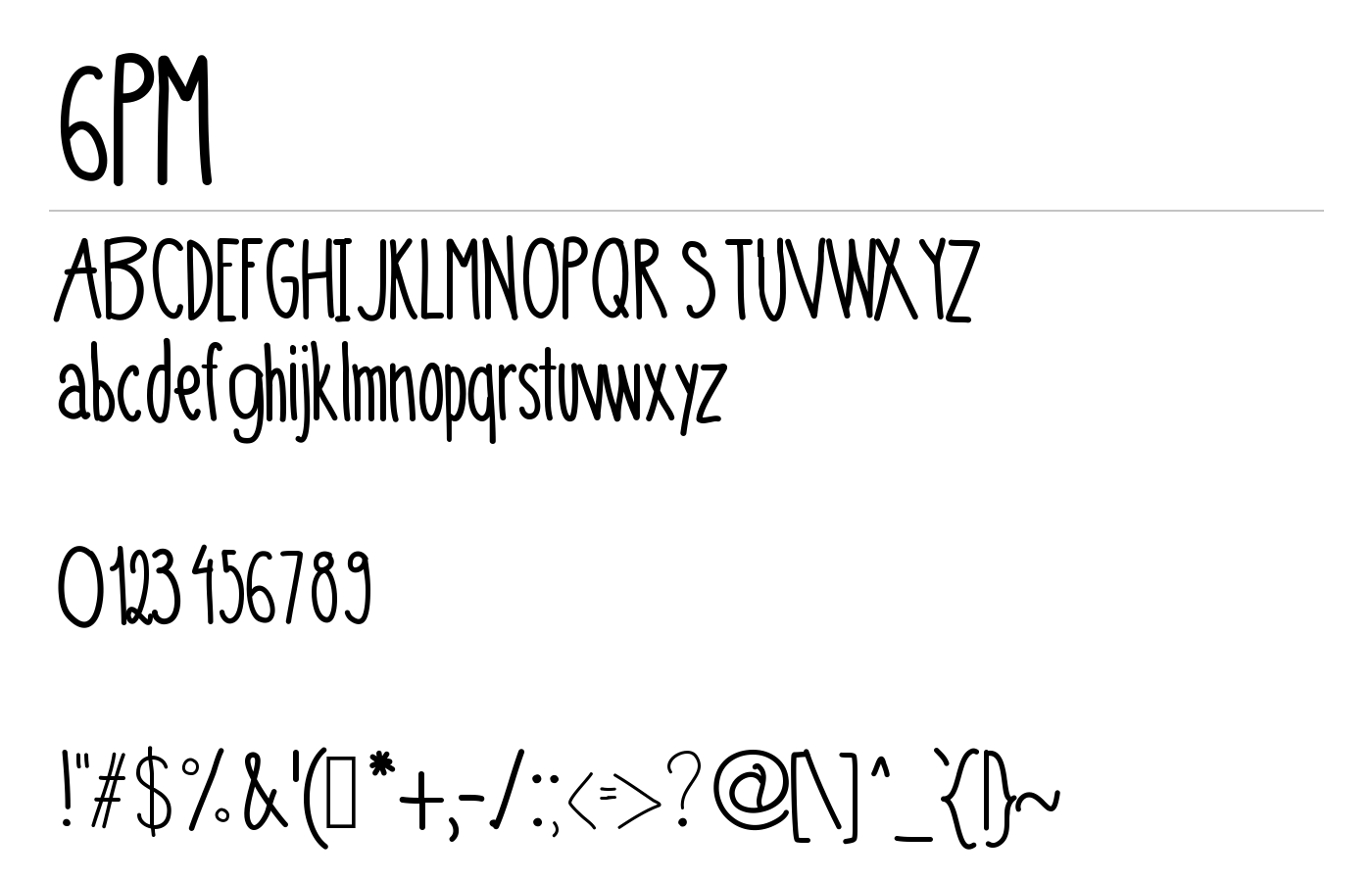
6PM is a playful and quirky sans-serif font with a hand-drawn, casual style. Its tall, narrow letterforms and uneven strokes give it an approachable and informal personality, making it perfect for creative projects, children’s designs, or any context seeking a friendly, whimsical touch. This font works well in headlines, logos, and packaging where a fun, lively vibe is desired.
6PM Font